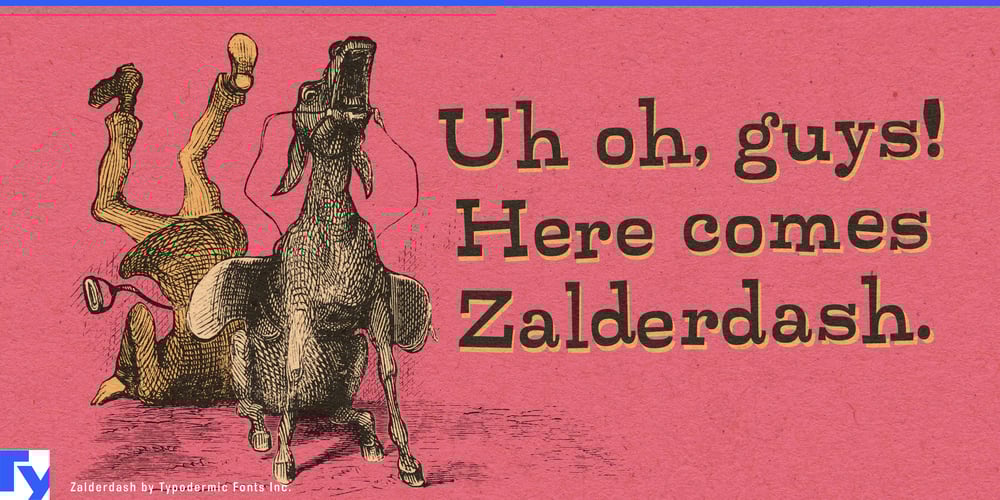
Zalderdash
Zalderdash font
Zalderdash Font Family was designed by Ray Larabie and published by Typodermic. Zalderdash contains 1 styles and family package options. Introducing Zalderdash! The wackiest, most uproarious font on the farm. This isn’t your average typeface—oh no, this is a zany slab-serif, and it’s so thick you could milk it. Our font farmers have been hard at work breeding this baby to make sure it’s as silly as can be. Zalderdash isn’t just any old font, it’s a campy Clarendon that’s sure to make all your graphic design dreams come true! With its automatic character substitution, your text will jump off the page like a herd of wild cows! You’ll be mooooved by the boisterous and bouncy impression it makes! And don’t worry about perfect alignment because Zalderdash loves to get cockeyed! It’ll take your design from boring to barn-raising in no time. So, whether you’re designing a farm-fresh logo or a hilarious invitation to your next hoedown, Zalderdash is the font for you. It’s fun, it’s goofy, and it’s the freshest thing to hit the typography scene since sliced hay! Most Latin-based European writing systems are supported, including the following languages. Afaan Oromo, Afar, Afrikaans, Albanian, Alsatian, Aromanian, Aymara, Bashkir (Latin), Basque, Belarusian (Latin), Bemba, Bikol, Bosnian, Breton, Cape Verdean, Creole, Catalan, Cebuano, Chamorro, Chavacano, Chichewa, Crimean Tatar (Latin), Croatian, Czech, Danish, Dawan, Dholuo, Dutch, English, Estonian, Faroese, Fijian, Filipino, Finnish, French, Frisian, Friulian, Gagauz (Latin), Galician, Ganda, Genoese, German, Greenlandic, Guadeloupean Creole, Haitian Creole, Hawaiian, Hiligaynon, Hungarian, Icelandic, Ilocano, Indonesian, Irish, Italian, Jamaican, Kaqchikel, Karakalpak (Latin), Kashubian, Kikongo, Kinyarwanda, Kirundi, Kurdish (Latin), Latvian, Lithuanian, Lombard, Low Saxon, Luxembourgish, Maasai, Makhuwa, Malay, Maltese, Māori, Moldovan, Montenegrin, Ndebele, Neapolitan, Norwegian, Novial, Occitan, Ossetian (Latin), Papiamento, Piedmontese, Polish, Portuguese, Quechua, Rarotongan, Romanian, Romansh, Sami, Sango, Saramaccan, Sardinian, Scottish Gaelic, Serbian (Latin), Shona, Sicilian, Silesian, Slovak, Slovenian, Somali, Sorbian, Sotho, Spanish, Swahili, Swazi, Swedish, Tagalog, Tahitian, Tetum, Tongan, Tshiluba, Tsonga, Tswana, Tumbuka, Turkish, Turkmen (Latin), Tuvaluan, Uzbek (Latin), Venetian, Vepsian, Võro, Walloon, Waray-Waray, Wayuu, Welsh, Wolof, Xhosa, Yapese, Zapotec Zulu and Zuni.